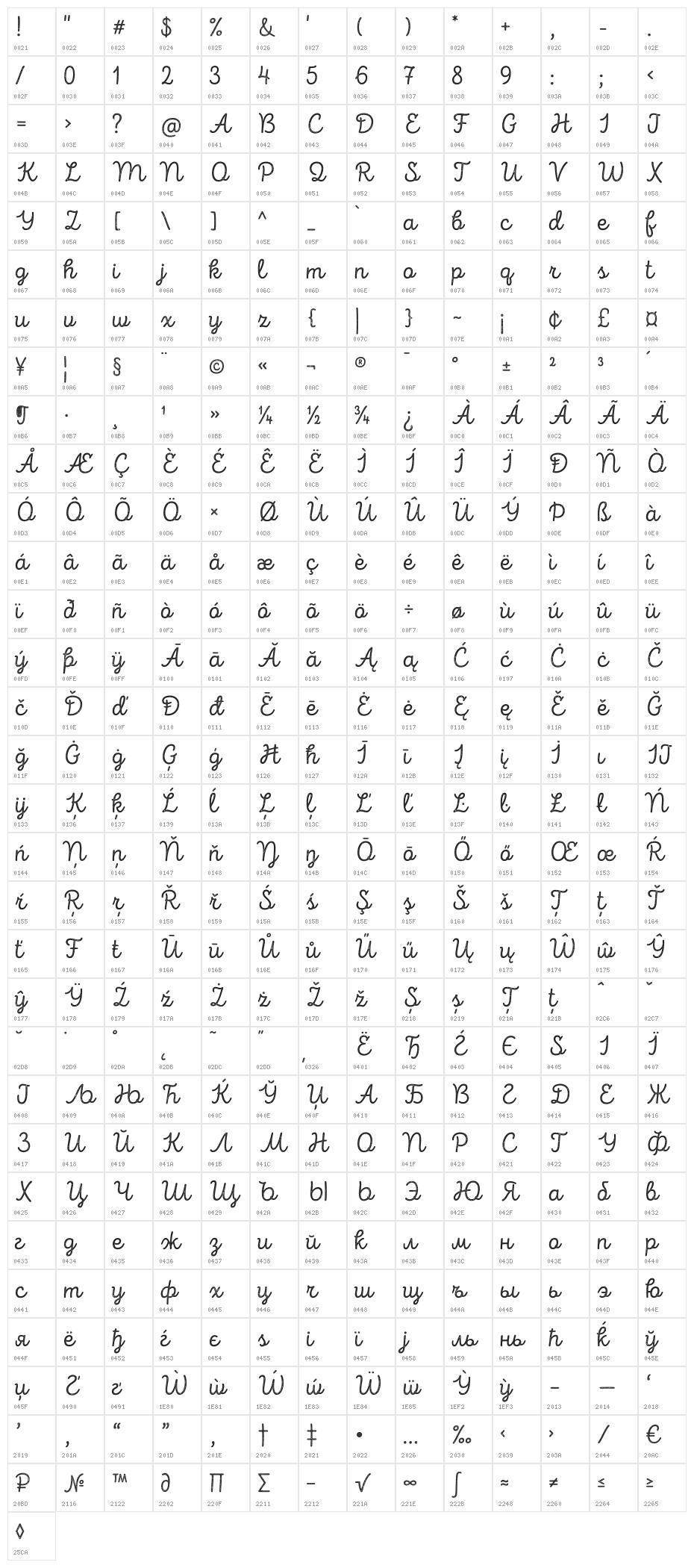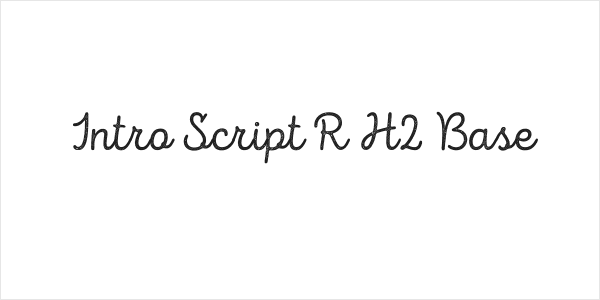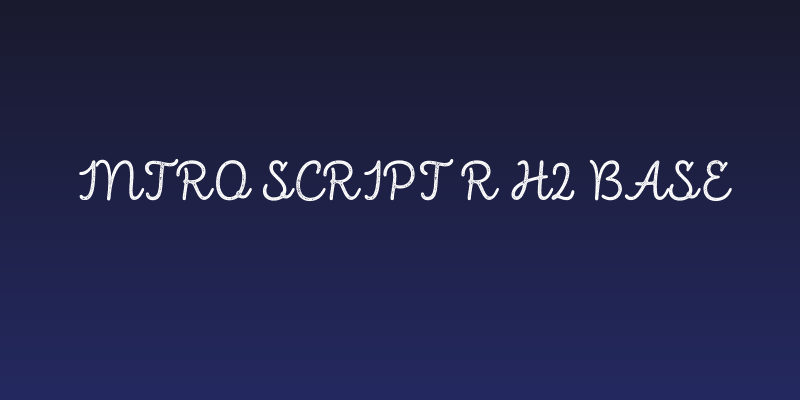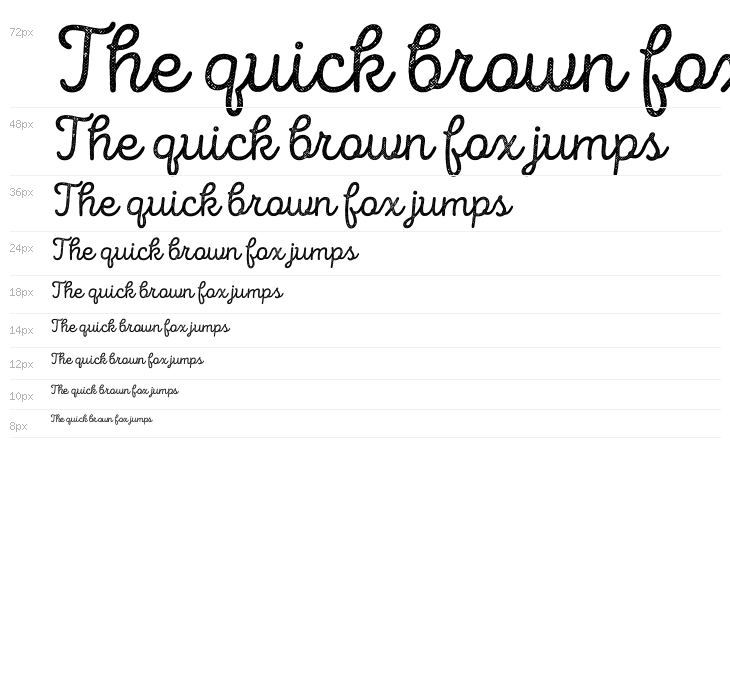
Intro Script R H2 Base Font
Intro Script R H2 Base Description
This font features a playful and dynamic script style with a hand-drawn appearance. The characters are connected, giving it a fluid and continuous look. The strokes are consistent in thickness, providing a uniform appearance across all letters. The uppercase letters maintain a sense of elegance with their looping and flowing lines, while the lowercase letters are more casual and approachable. The numerals and special characters are designed to match the overall style, ensuring cohesion throughout. This font is ideal for projects that require a personal touch or a creative flair.